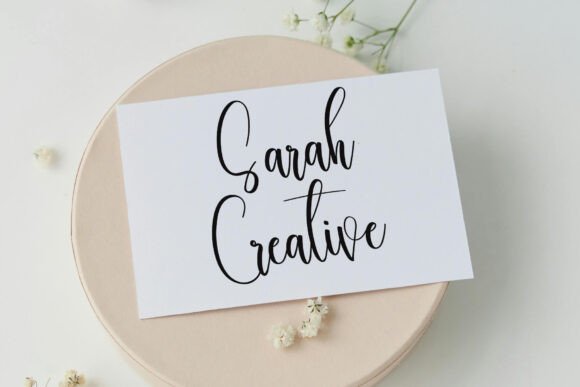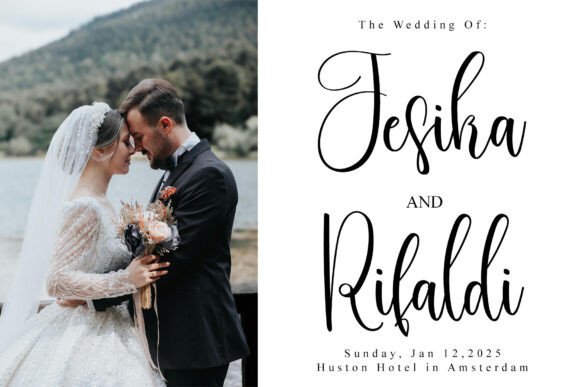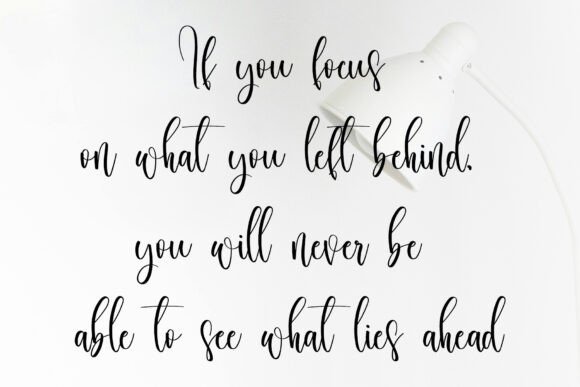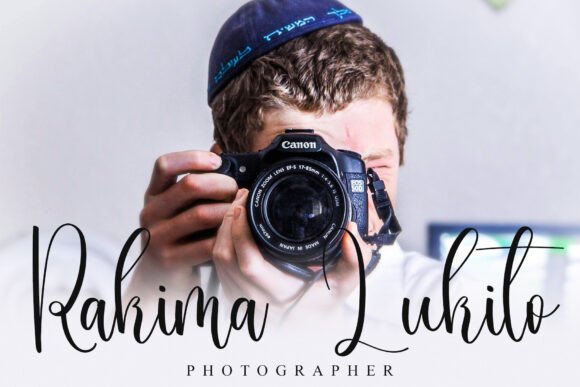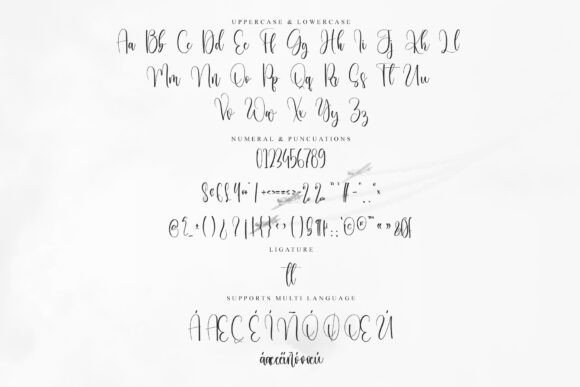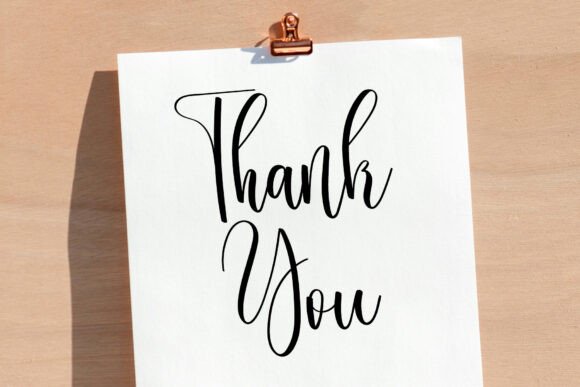
Introduction to Smarter Writing Font
Have you ever been working on a creative project, pouring your heart and soul into it, only to feel like something’s missing? That’s where the perfect font can make all the difference. For designers, finding the right font can be the key to unlocking the full potential of their work. And when it comes to handwritten fonts, few options are as versatile and stylish as the Smarter Writing Font.
This high-quality design resource is a game-changer for any creative project, offering a unique blend of classic calligraphy and modern flair. With its transparent background and balanced, varied strokes, the Smarter Writing Font is the perfect choice for designers who want to add a touch of elegance and sophistication to their work.
Whether you’re working on a free download or a paid project, the Smarter Writing Font is a valuable addition to any designer’s toolkit. So why settle for a generic font when you can elevate your design with the beauty and sophistication of the Smarter Writing Font?
Key Features of Smarter Writing Font
- High-quality, professional font design perfect for creative projects and presentations.
- Features a transparent background, allowing for seamless layering and customization in your design.
- Unique characteristics include elegant lines, precise typography, and a clean, modern aesthetic.
- Perfect for use in digital and print designs, including business cards, brochures, and website headers.
- Smarter Writing Font is a versatile design resource suitable for a wide range of creative projects and applications.
Honest Review: Smarter Writing Font
Here are some things that work well with the Smarter Writing Font:
- ✨ Unique and elegant design that’s perfect for titles and headings
- ✨ Highly legible, even at smaller font sizes
- ✨ Available in a range of weights and styles, making it versatile for different design needs
- ⚠️ The font doesn’t come with a transparent background option, which might be a drawback for designers who need that feature
- ⚠️ The font family is relatively small, so you might need to purchase additional weights or styles if you’re working on a large-scale project
Overall, I’m impressed with the Smarter Writing Font, and I think it’s a valuable addition to any designer’s design resource library. While it may have some limitations, its high quality and unique design make it a great choice for creative projects.
Smarter Writing Font
To get the most out of the Smarter Writing Font, use it with a transparent background to create a clean and modern design. Experiment with different font sizes and styles to find the perfect combination for your creative project.
The Smarter Writing Font is perfect for a variety of design projects, including:
- Blog posts and articles
Alternatives to Smarter Writing Font
Great Vibes Font is a beautiful, high-quality script font perfect for creative projects, such as invitations, posters, and social media graphics. It’s ideal for designers who want to add a touch of elegance and sophistication to their designs. With a free download available, it’s a great alternative to Smarter Writing Font for designers on a budget. Great Vibes Font has a more vintage feel compared to Smarter Writing Font, which is more modern.
Alex Brush Font is a stunning, handwritten font that’s perfect for designers who want to add a personal touch to their creative projects. It’s a great choice for wedding invitations, birthday cards, and other special occasions. With a transparent background, it’s easy to layer and combine with other design elements. Alex Brush Font has a more whimsical feel compared to Smarter Writing Font, which is more straightforward.